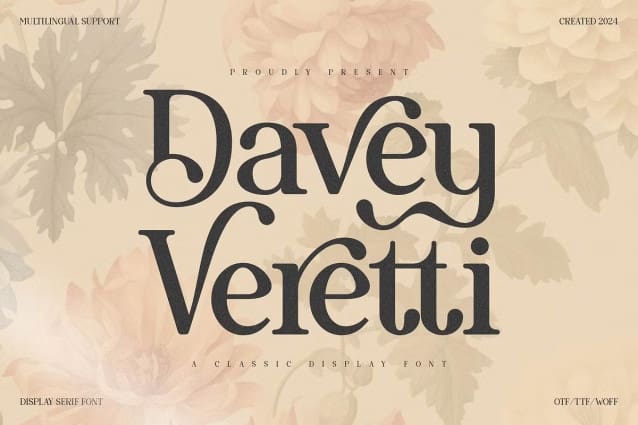
Davey Veretti Font
Davey Veretti Font | Classic Display Font, from Denustudios, suitable for any projects such as: logos, branding projects, homeware designs, product packaging, mugs, quotes, posters, shopping bags, t-shirts, book covers, name card, invitation cards, greeting cards, label, photography, watermark, special events, and all your other lovely projects that need a Classic Display Font taste.